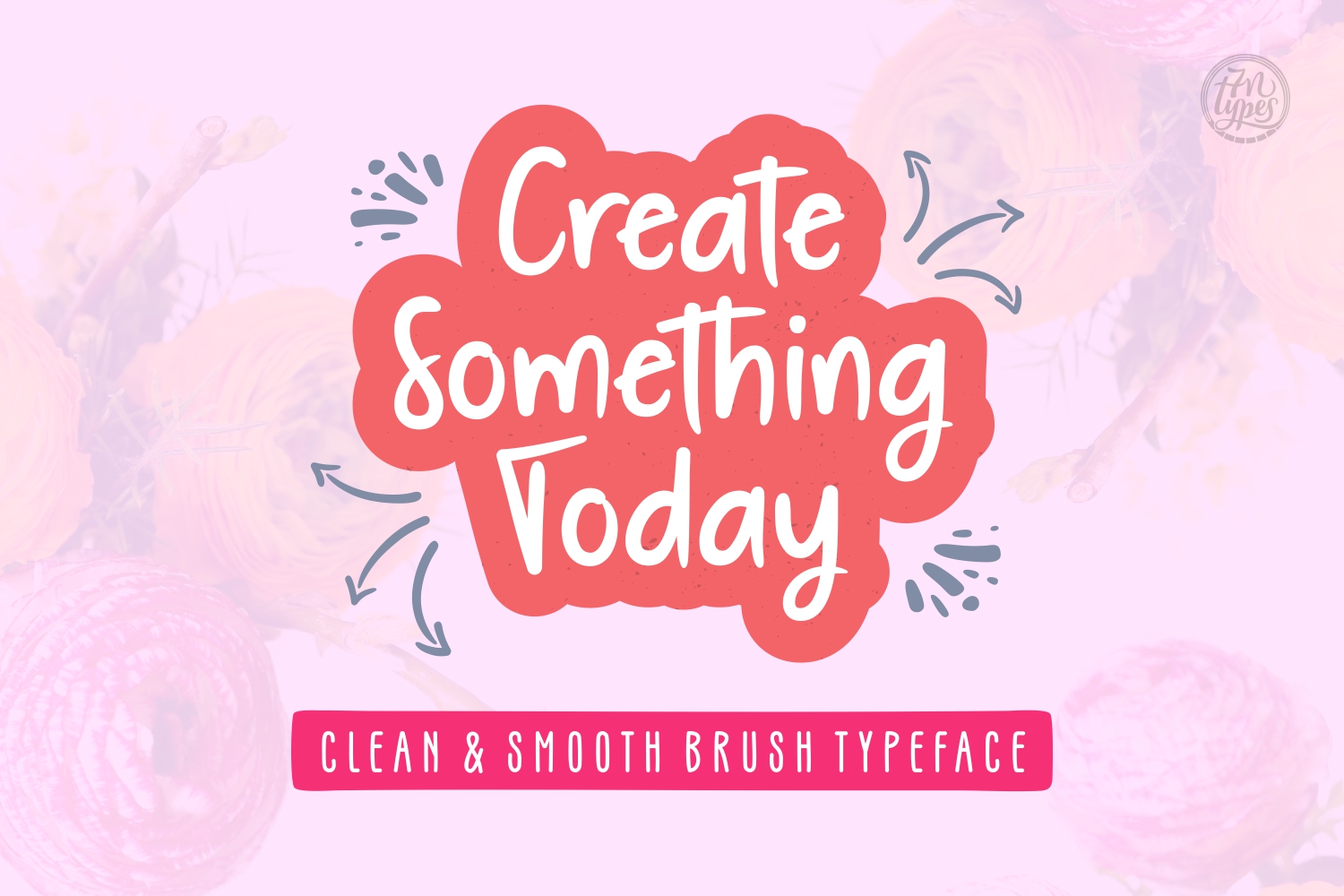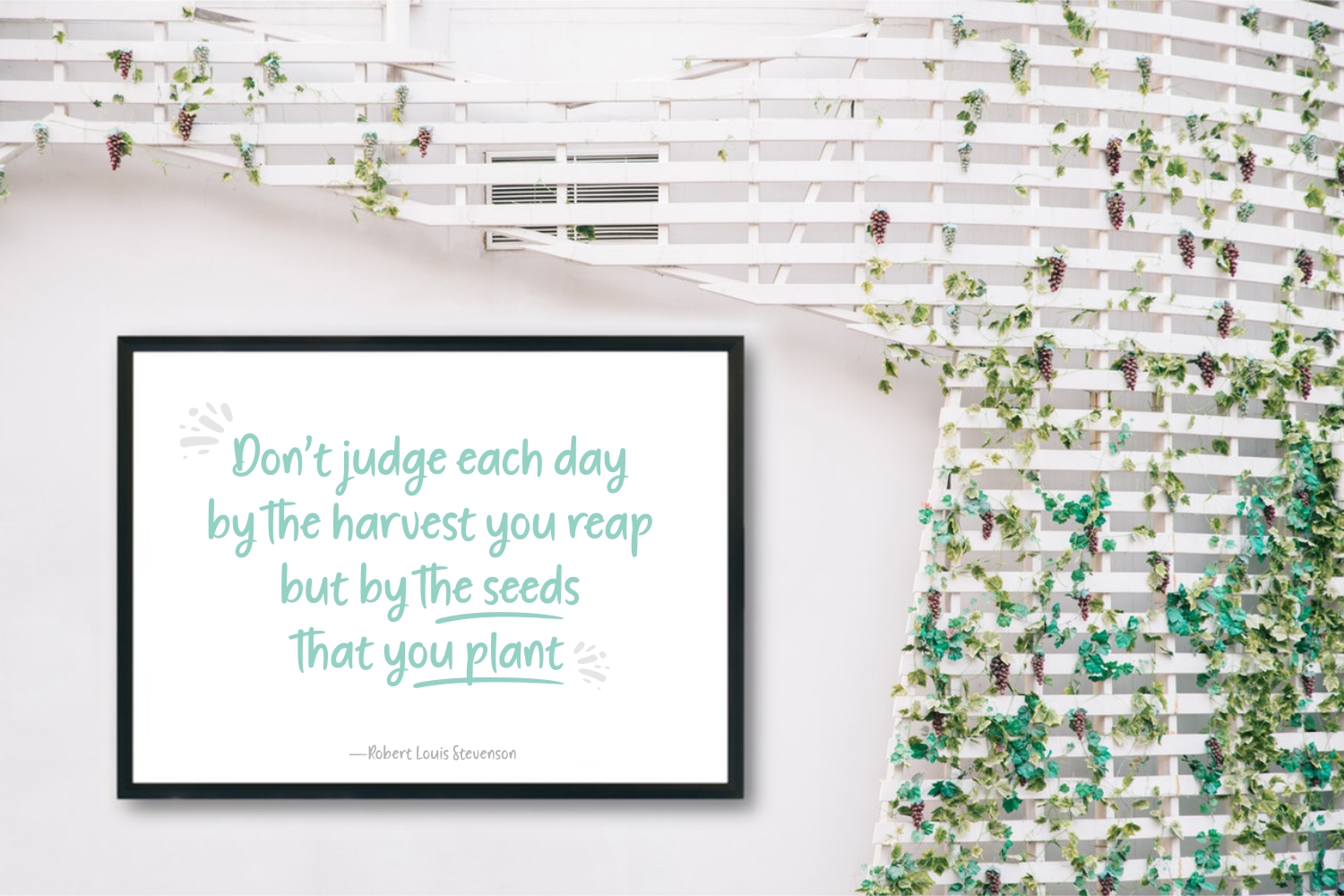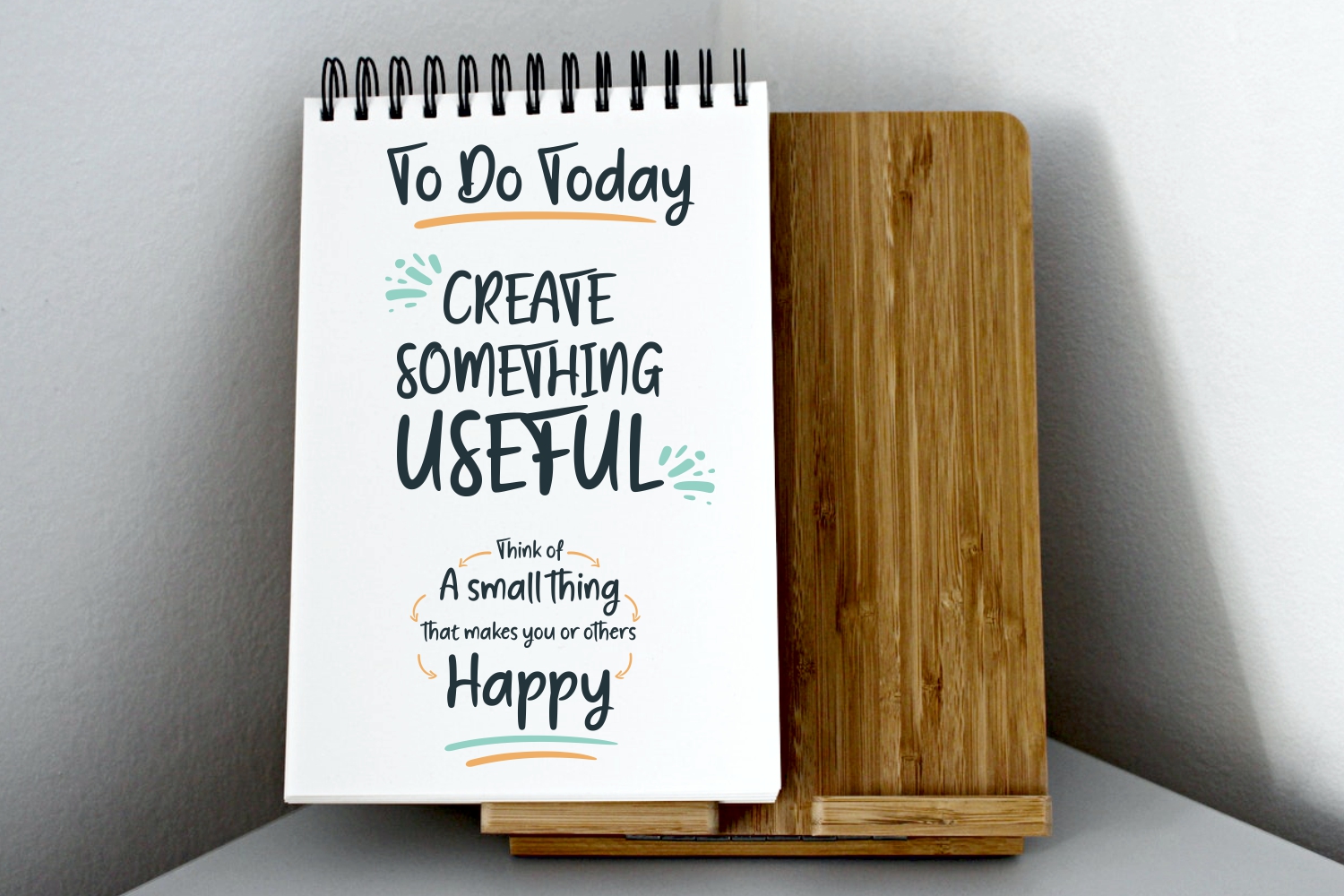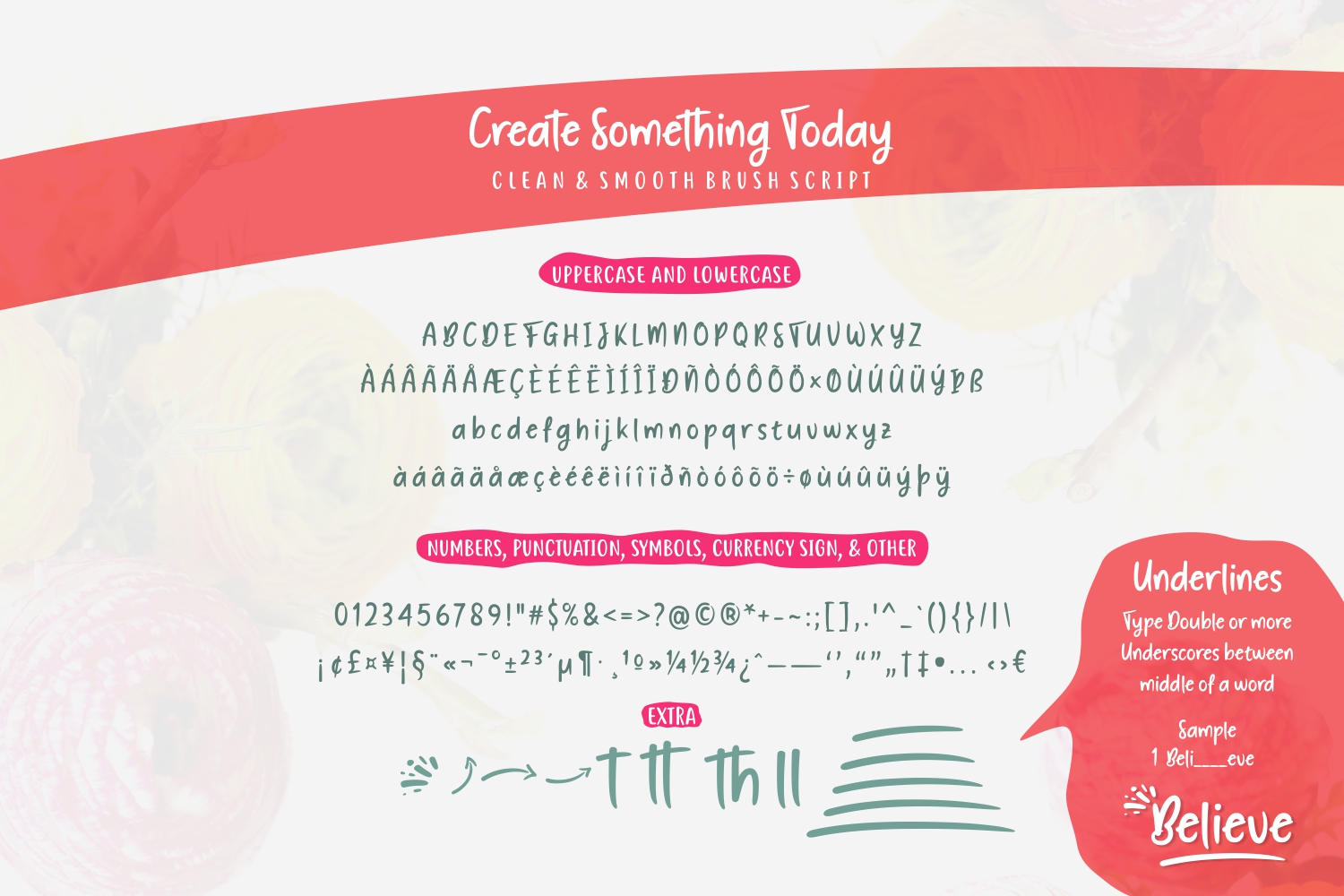
Create Something Today Font
Create Something Today, a stunning and playful handwritten font.
It’s playful look & feel will help you to turn any design into something unique.